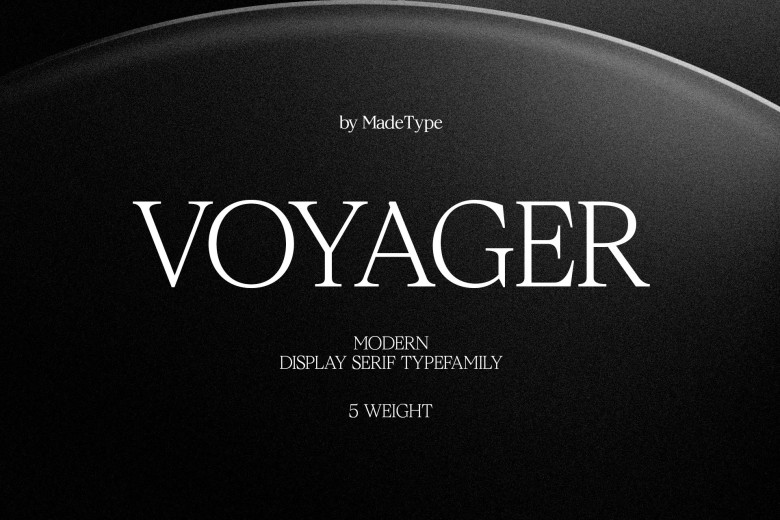
Voyager Font
Voyager font is a distinctive serif typeface designed by MakeType that features thin-lettered letters with distinctive serifs. This font can be used for logos, branding, retro, vintage designs, music & fashion videos, album covers and posters etc. as well as editorial designs on websites/blogs/cards etc.
Voyager Serif Font